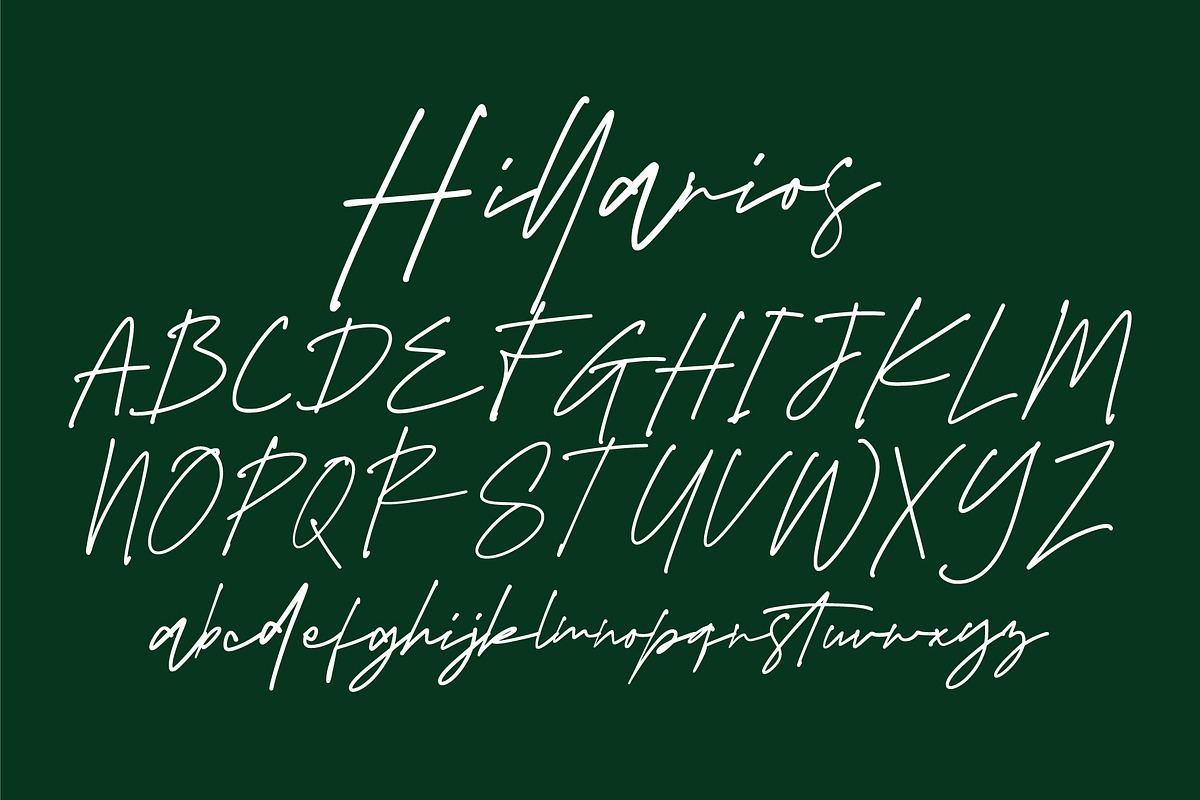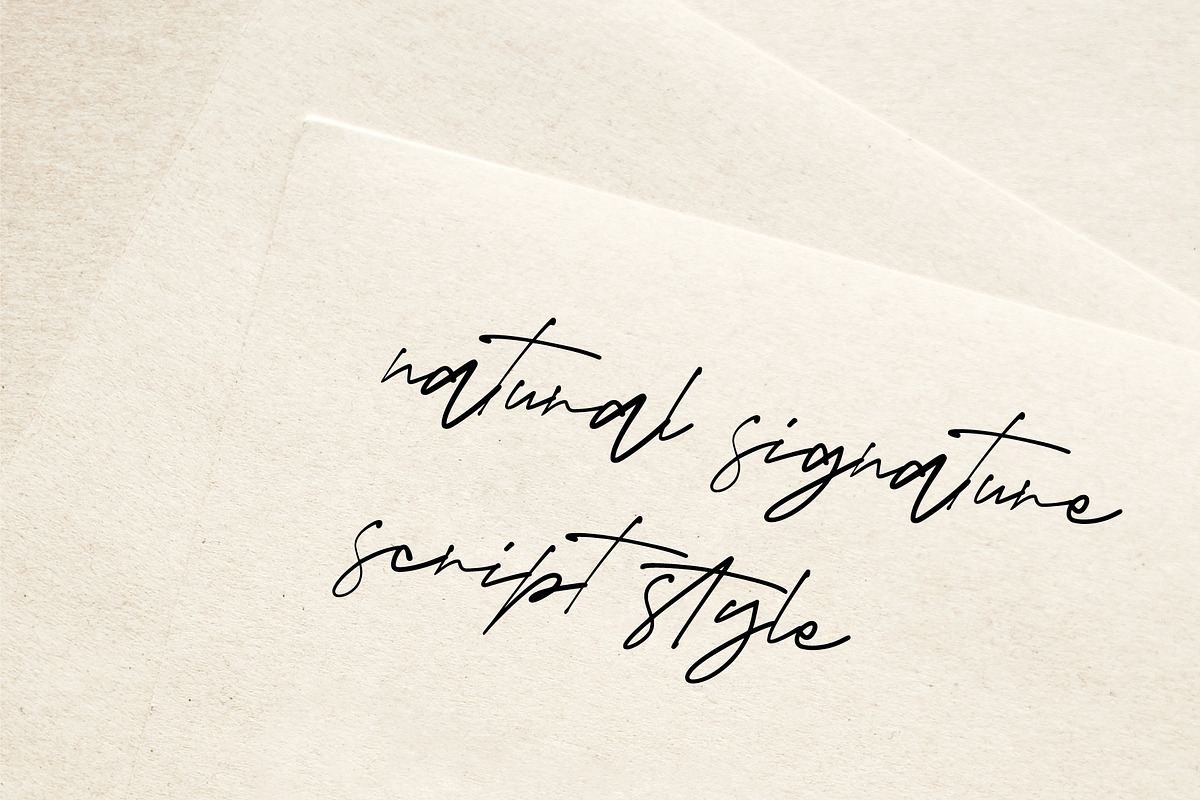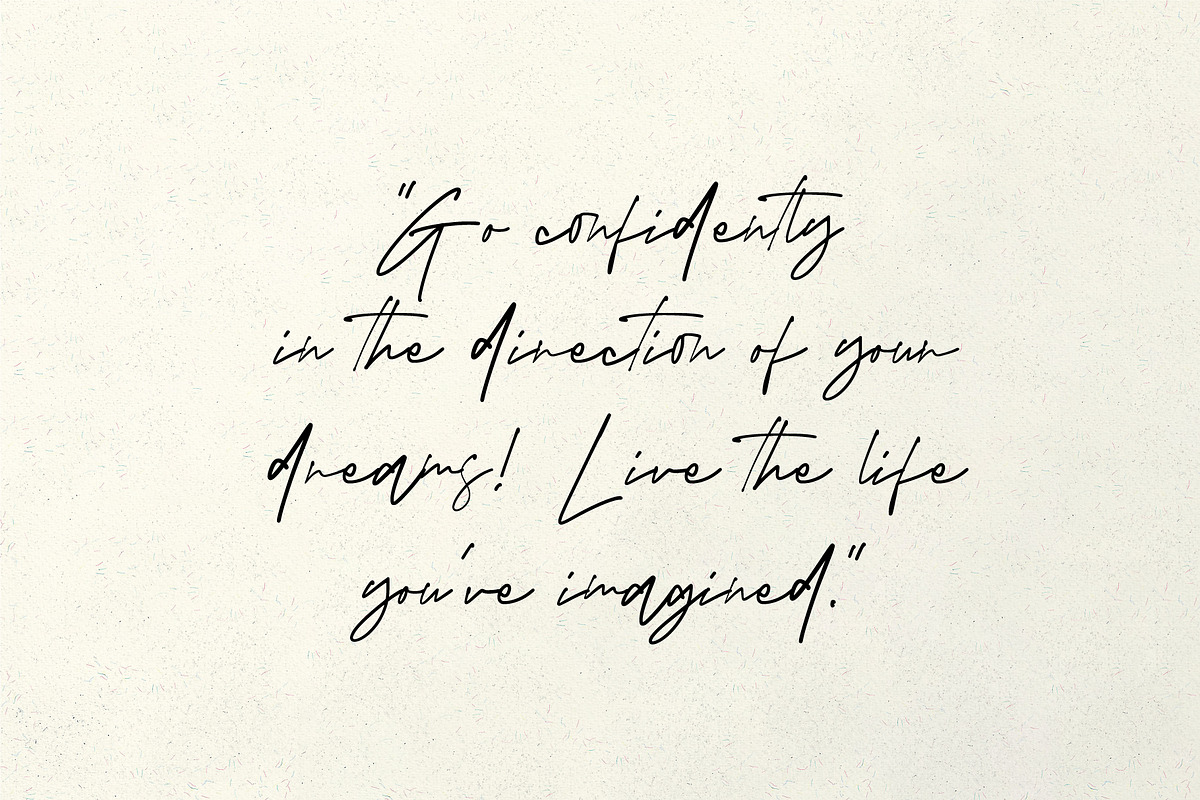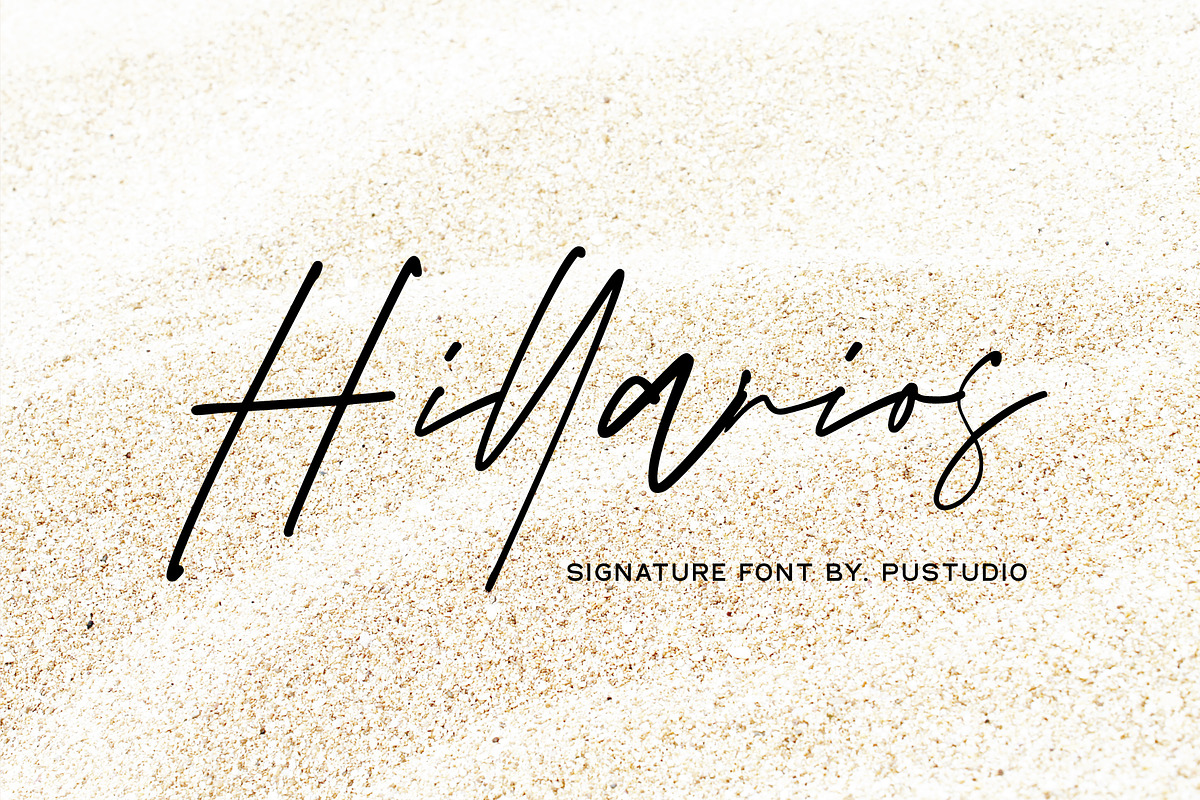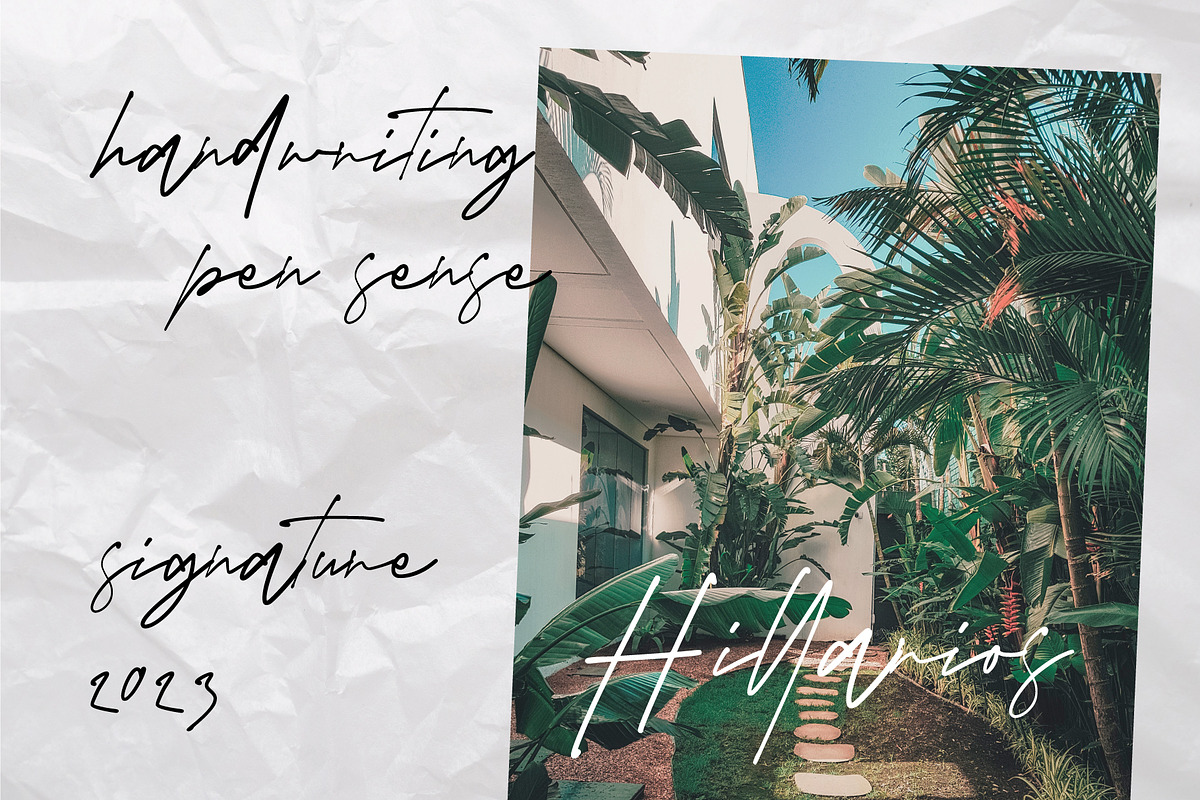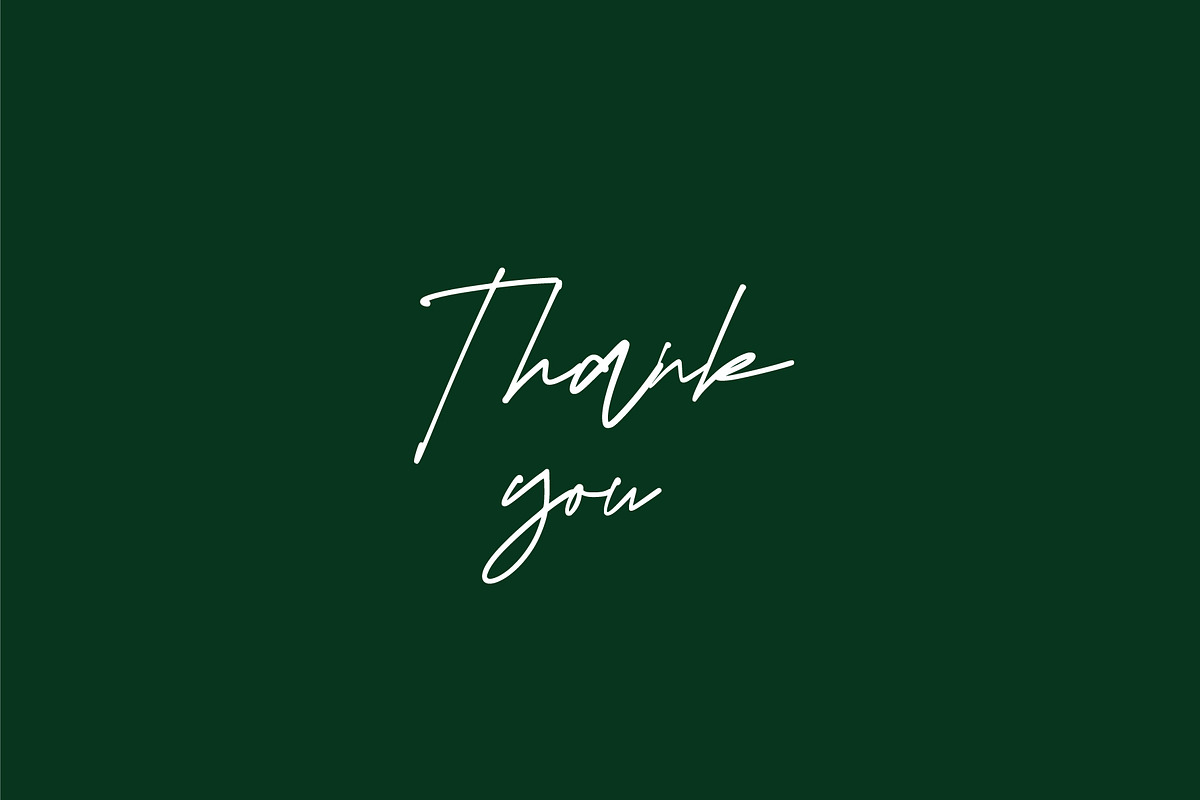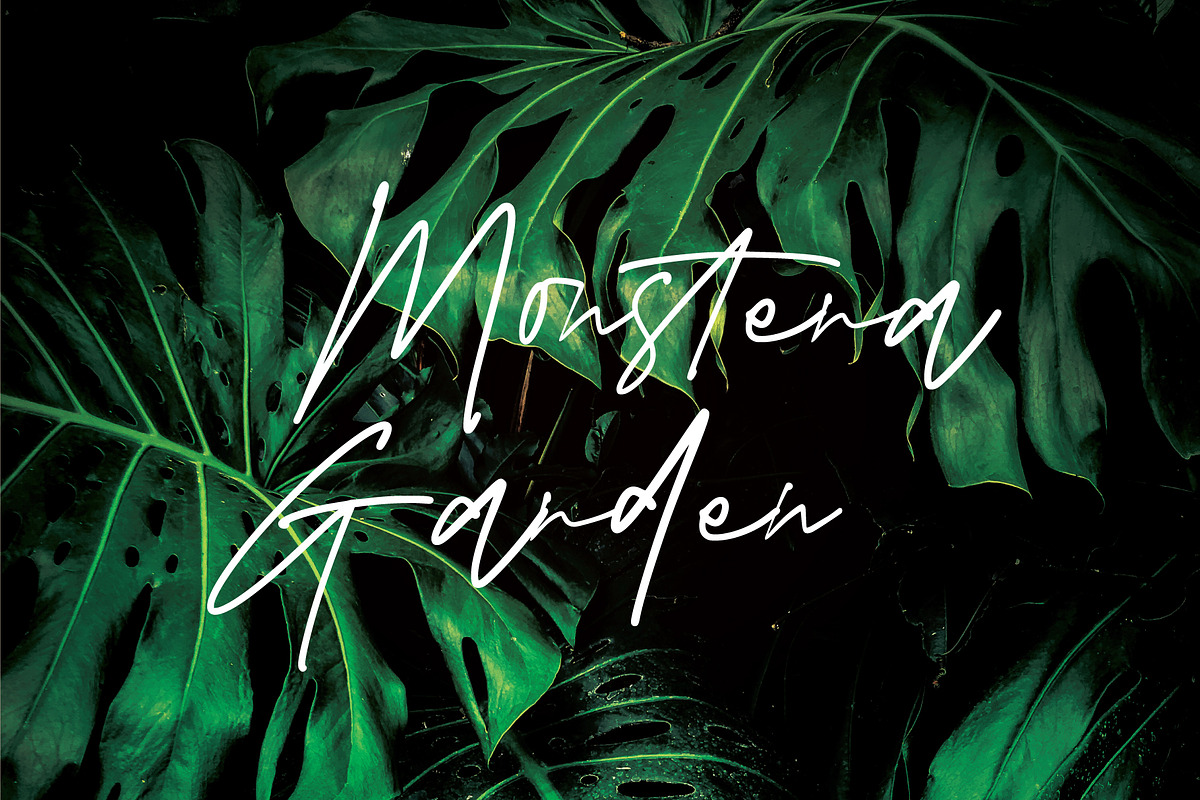
Hillarios
Hillarios is a beautiful script font featuring charming and elegant handwritten characters. Add this font to your most creative ideas, and see how it makes it stand out!